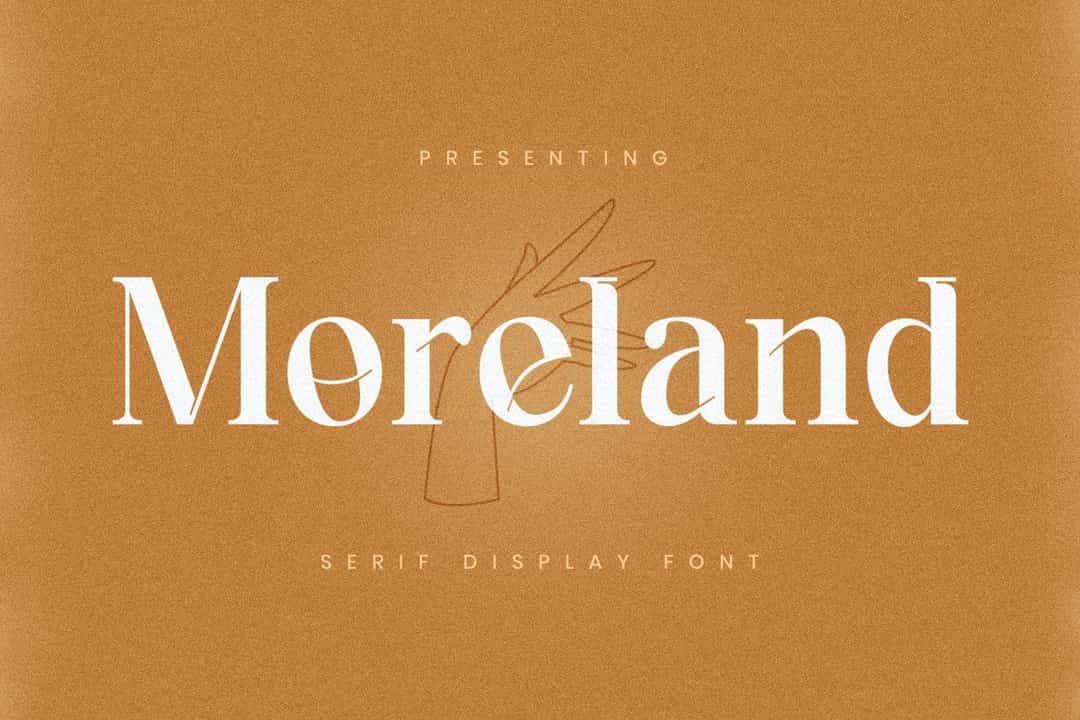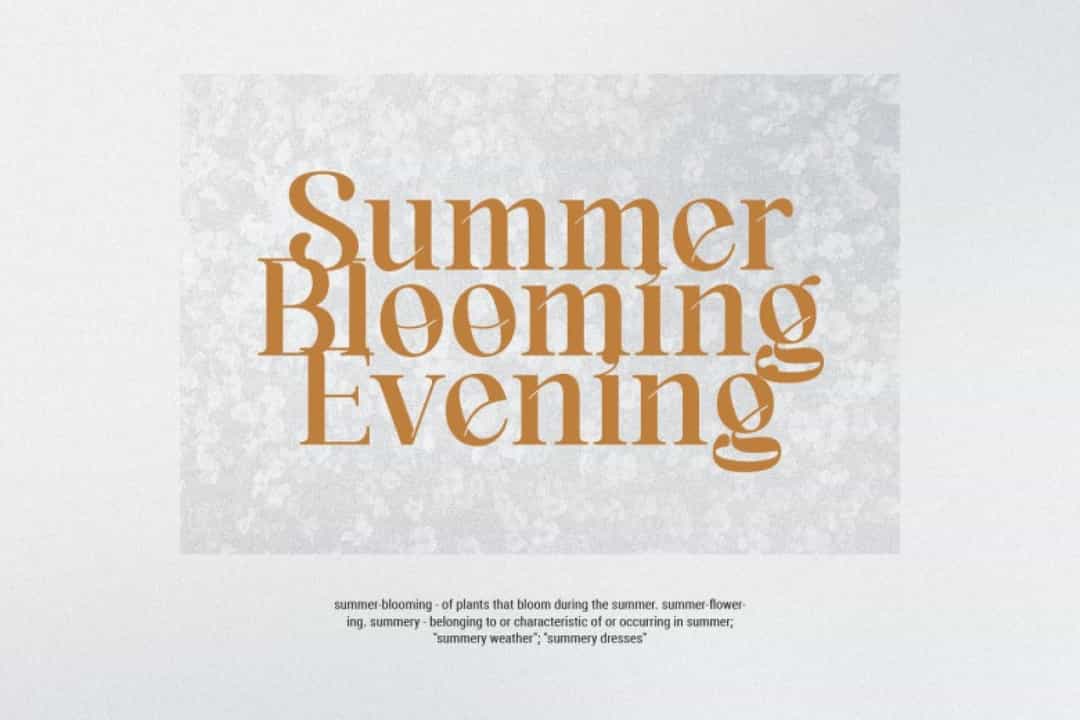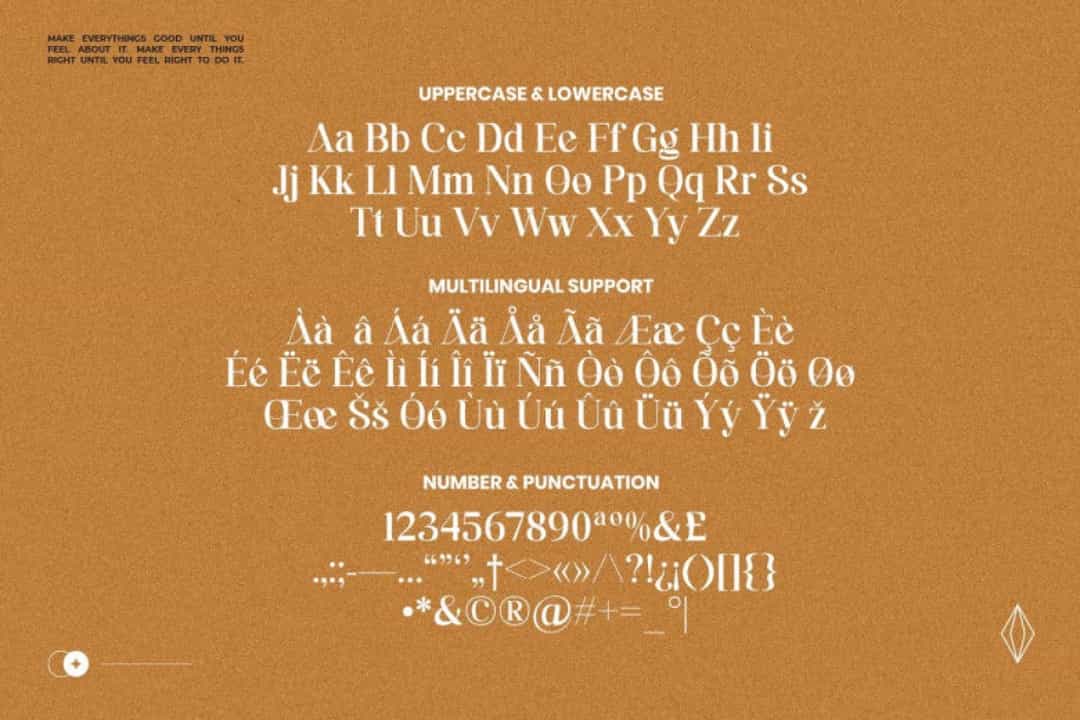
Moreland can be best described as an elegant font with lots of character. It makes an outstanding choice to present your designs in many different ways, including branding and logo designs, watermarks on invitations and photographs, logo designs for products designed with it, wedding themes labels packaging products for special events as well as much more!